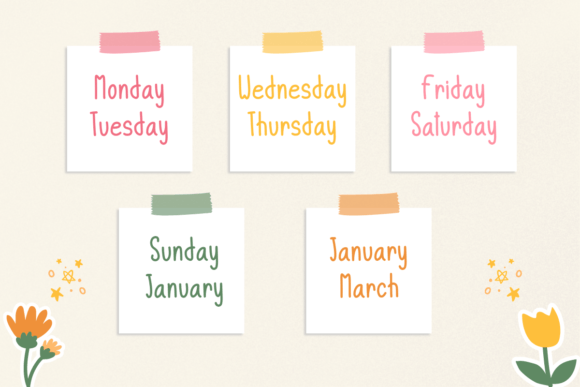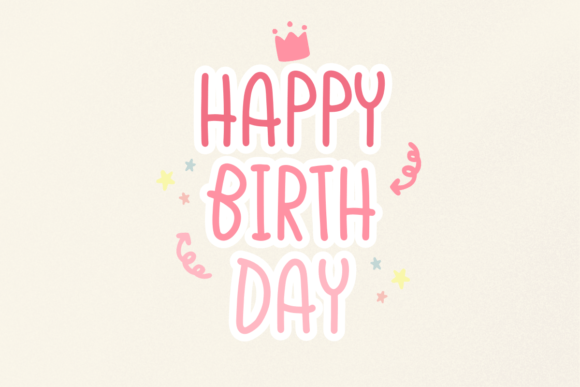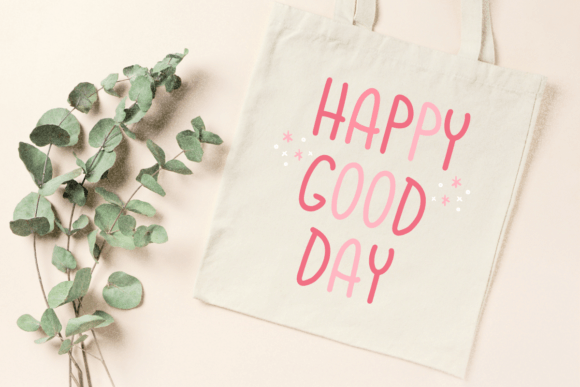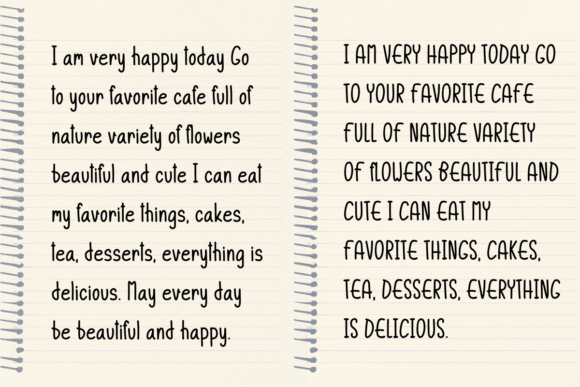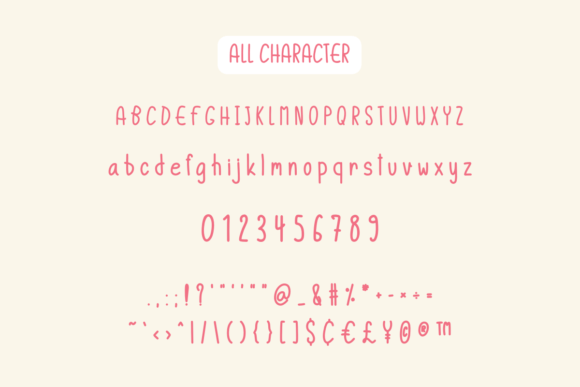
Introduction to Cute Stationery Font
Cute Stationery is a cute handwritten font Simple and cute, yet charming, can be used to create a variety of works.
Versatile, can be used in a variety of applications from crafts for kids, teachers, to greeting cards text on the product to become the centerpiece of your design.